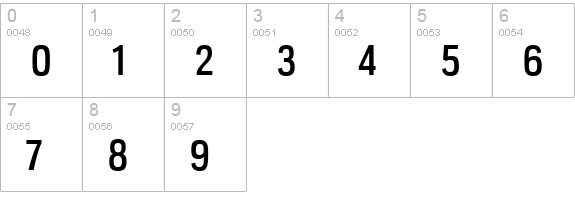
Veriox Rg Font Details
Veriox Rg font is a modern and stylish typeface that exudes elegance and sophistication. Its sleek lines and sharp edges make it perfect for creating eye-catching designs that demand attention. The versatility of Veriox Rg allows it to be used in a variety of projects, from branding to editorial design. One of the best things about Veriox Rg is that it is completely free to download. You can easily access this stunning font at FontsMarket.com and start using it in your projects right away. Whether you are a designer looking to enhance your portfolio or a business owner wanting to elevate your brand, Veriox Rg is sure to impress with its timeless appeal and versatility. Download Veriox Rg today and let your creativity shine!